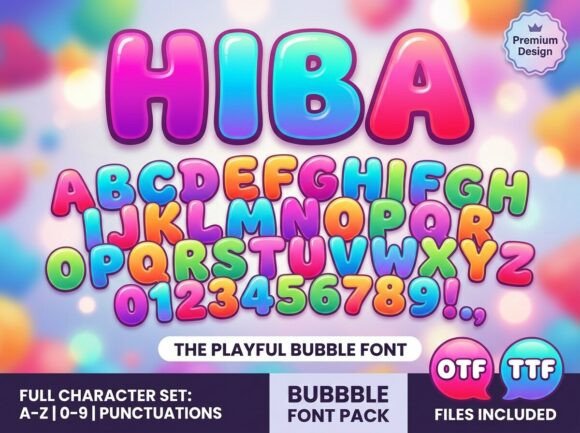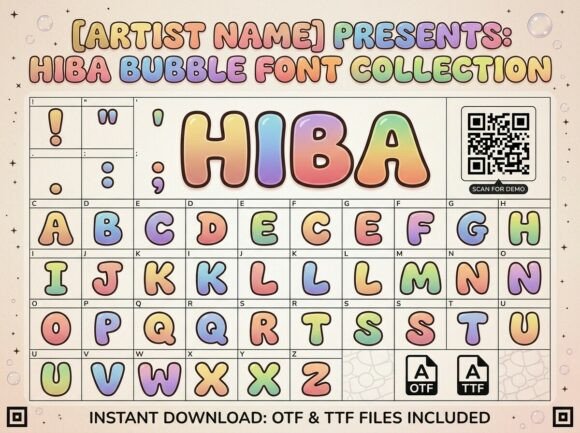
Discover the Magic of Hiba Font
Meet Hiba Font, a stunning decorative display font designed to take center stage and leave a lasting impression. With its unique artistic elements and strong visual personality, this font is the ultimate game-changer for designers who crave something extraordinary.
Whether you’re working on a modern poster, a unique brand identity, or eye-catching social media content, Hiba Font adds an instant “wow” factor to any project, elevating your design to new heights and making it stand out from the crowd.
Key Features of Hiba Font
- High-quality design resource with a unique, elegant aesthetic suitable for creative projects.
- Designed to be versatile and adaptable, making it a valuable addition to any design resource collection.
- Perfect for use in a variety of creative projects, including logos, typography, and branding materials.
- Includes a wide range of characters, including Latin and Cyrillic alphabets, making it a great choice for multilingual designs.
Honest Review: Hiba Font
As a designer, I’m always on the lookout for high-quality fonts that can elevate my creative projects. Recently, I had the chance to try out the Hiba Font, and I must say, it’s a gem!
- ✨ Clean and modern design: The Hiba Font features a sleek and contemporary look that’s perfect for modern design projects.
- ✨ High-quality glyphs: The font includes a wide range of glyphs, including Latin, Cyrillic, and Arabic characters, making it a versatile design resource.
However, I did encounter a few limitations while using the font. ⚠️ The font’s weight options are a bit limited, which might not be ideal for designers who prefer a wide range of font weights.
Overall, I’m impressed with the Hiba Font. Its clean design, high-quality glyphs, and transparent background make it a valuable addition to any designer’s toolkit. If you’re looking for a reliable and high-quality font for your creative projects, I’d definitely recommend giving the Hiba Font a try.
Hiba Font: A High-Quality Design Resource for Creative Projects
Use the Hiba Font in conjunction with other design elements to create a visually appealing design. Experiment with different font sizes and colors to enhance the visual impact of your design. You can also use the font in combination with images to create a unique and eye-catching design.
Common Use Cases for Hiba Font
The Hiba Font is ideal for a wide range of creative projects, including brochures, business cards, and social media graphics. It is also suitable for use in presentations, documents, and websites. With its high-quality design and transparent background, the Hiba Font is a valuable design resource for any creative project.